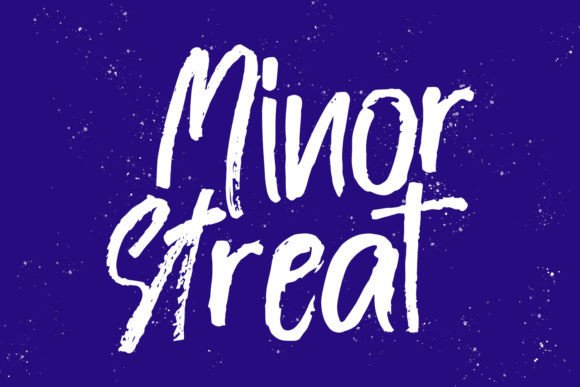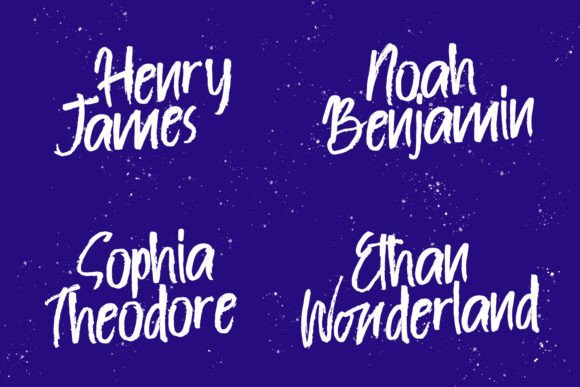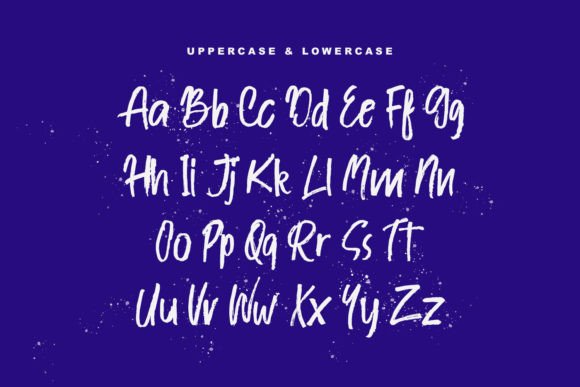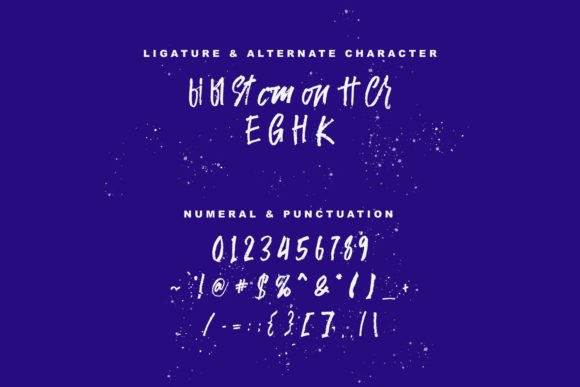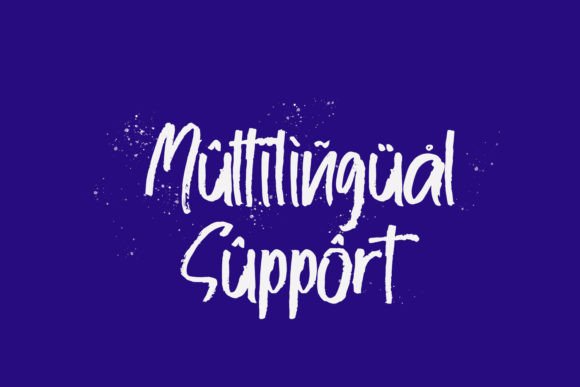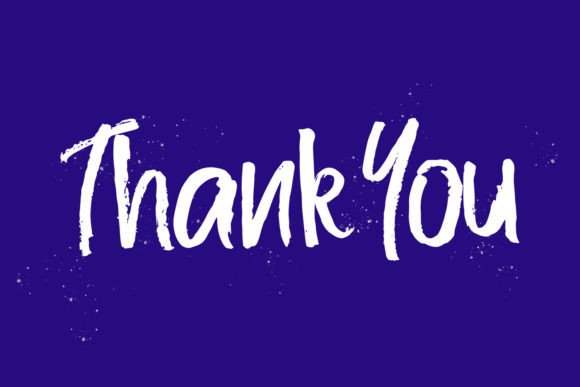
The Ultimate Guide to Cronest Font: Adding a Youthful Spirit to Your Designs
I’ll never forget the time I was working on a project for a trendy boutique hotel, and I just couldn’t find the right font to capture their laid-back, bohemian vibe. The client wanted something that felt youthful, yet sophisticated. That’s when I stumbled upon Cronest Font, a handwritten brush font that instantly became my go-to. In this article, I’ll share my love for Cronest, its features, and how to make the most of it in your designs.
An Honest Review of Cronest Font
Cronest Font has quickly become a staple in my design toolkit, and for good reason. Here’s what I love about it:
- ✨ Unique, hand-drawn feel that adds a touch of personality to any design
- ✅ Perfect for a variety of projects, from posters and magazine covers to logo design and wall art
- ✅ Easy to read, even in smaller sizes
- ✨ Highly versatile, with plenty of opportunities for customization
Of course, no font is perfect, and Cronest has a few small quirks:
- ⚠️ Some users may find the font a bit too casual for certain projects
- 🤔 Limited availability of certain characters, such as accented letters
The Backstory Behind Cronest Font
Cronest Font was designed with the intention of capturing the carefree spirit of youth. Its creator, a passionate typographer, drew inspiration from the world of street art and graffiti. The result is a font that feels fresh, playful, and perfect for designers who want to add a touch of personality to their work.
| What type of projects is Cronest Font best suited for? | Cronest Font is perfect for a variety of projects, including posters, magazine covers, logo design, wall art, and more. |
| Is Cronest Font easy to read? | Yes, Cronest Font is designed to be easy to read, even in smaller sizes. |